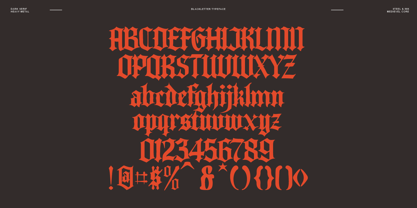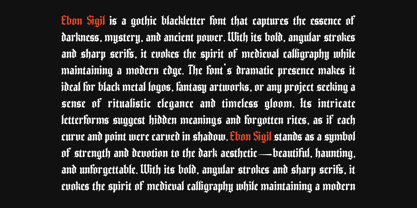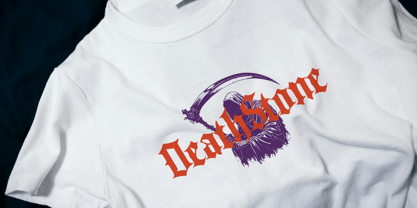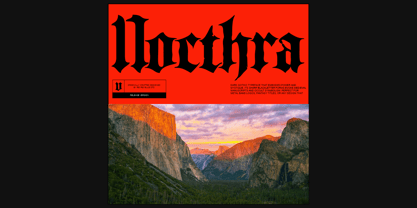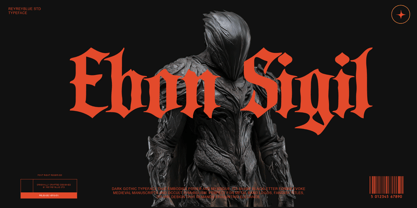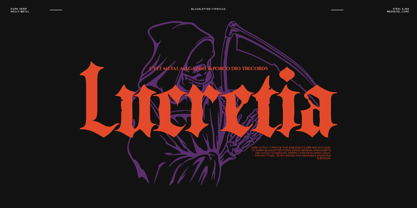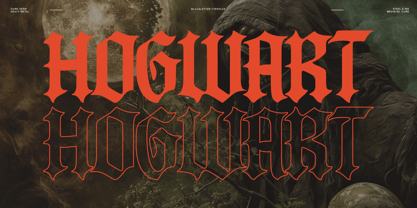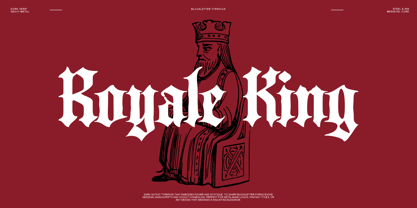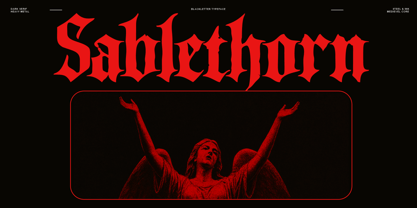
Ebon Sigil
The Ebon Sigil Font Family was designed by Nur Hasan and published by Reyrey Blue Std. Ebon Sigil contains 1 styles. More about this family
Ebon Sigil is a striking blackletter typeface that embodies mystery, strength, and dark elegance. Drawing inspiration from medieval manuscripts, ancient sigils, and occult symbolism, this font captures the haunting beauty of gothic art. Its bold, angular strokes and dramatic contrast make it ideal for metal band logos, fantasy titles, horror posters, or any design that seeks a sense of mystic grandeur. Each curve and serif of Ebon Sigil is meticulously crafted to balance aggression and sophistication, giving your typography an aura of timeless power. Whether utilized for branding, cover art, or cinematic titles, Ebon Sigil commands attention and leaves a lasting impression. Perfect for: • Metal & gothic band logos • Dark fantasy book covers • Esoteric or occult branding • Game titles & cinematic visuals • Editorial or poster designs Elevate your designs into the realm of shadows with Ebon Sigil — where elegance meets darkness.